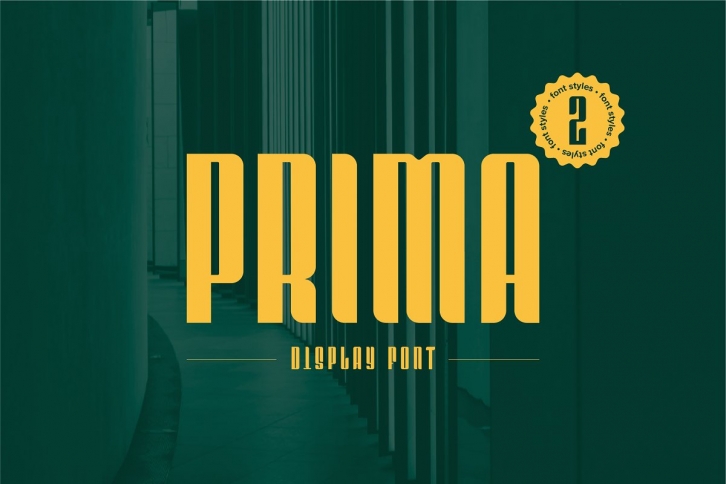
About the Product Introducing, Prima - an all caps classy sans serif with two versions
Prima is a classy and modern sans serif with two versions with Prima you will make your magazine or logo even more stunning and stand out! You can use this font as a complement of your modern collections or use this font as a stand alone font for several purposes such as a presentations, branding, headers, or even your own brand!